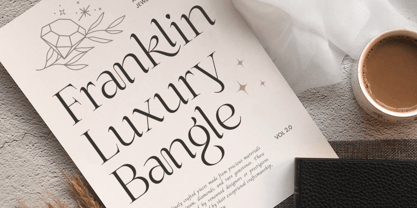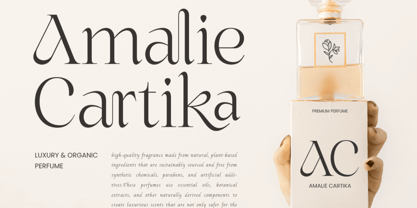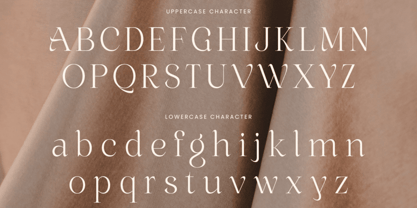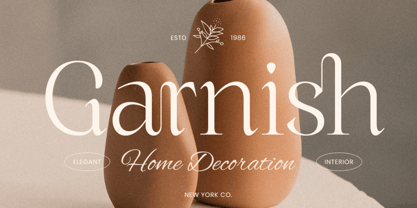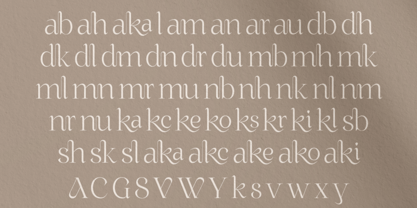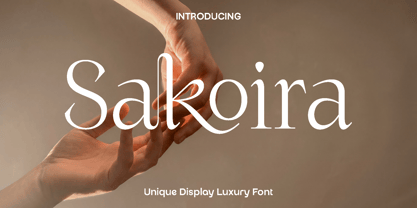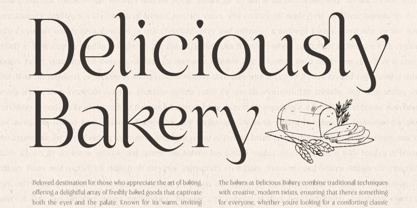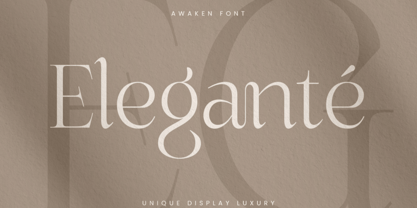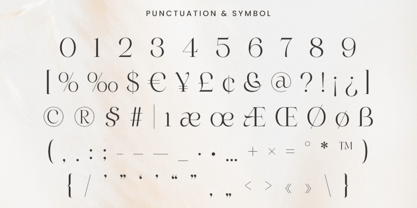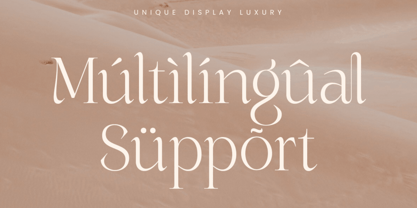
Sakoira
The Sakoira Font Family was designed by Olivia Love and published by Only Fonts. Sakoira contains 1 styles. More about this family
Sakoira – Unique Display Luxury Font Sakoira is a unique display luxury font designed to infuse sophistication, elegance, and artistic character into your creative projects. Drawing inspiration from high-end fashion, modern editorial design, and premium branding aesthetics, Sakoira features refined letterforms paired with distinctive stylistic details. Each character is meticulously crafted to create a bold yet graceful presence, providing your typography with a sense of exclusivity and visual impact. This font excels in projects that require attention and prestige, making it ideal for luxury branding, logo design, fashion campaigns, elegant invitations, magazine layouts, and upscale packaging. Sakoira transforms simple text into striking visual statements, enabling designers to convey style and refinement effortlessly. Its expressive forms and balanced proportions ensure that every word feels polished and memorable. With a modern yet timeless appeal, Sakoira is highly versatile, suitable for both classic and contemporary design directions. The combination of unique alternates and ligatures allows for creative compositions, enabling the creation of truly customized typography. Whether used for bold headlines or artistic layouts, Sakoira delivers a luxurious tone that enhances the overall design experience. Designed for creators who value originality and elegance, Sakoira helps your work stand out with confidence and style. It is an essential addition to any designer’s toolkit, offering both beauty and flexibility for high-quality visual storytelling. Sakoira Unique Display Luxury Font Features: • Unique alternate and ligature characters ready • Stylish punctuation, numbers, and symbols • Uppercase and lowercase • OpenType features • Multilingual support for 50 plus languages